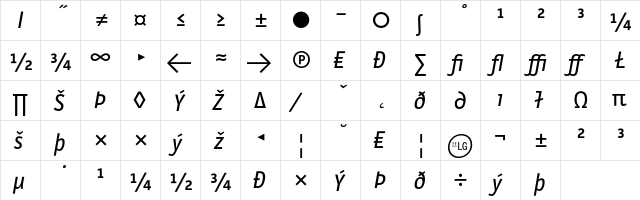
LetterGothicText ItalicExpert Font Preview
LetterGothicText ItalicExpert
Design Context for LetterGothicText Typeface
LetterGothicText takes a clean, functional approach — its unadorned letterforms prioritise legibility and work reliably across screen and print environments. The slanted form adds forward momentum and visual energy.
Font Pairing: Works well alongside a characterful serif or display font that can carry the expressive load while LetterGothicText handles the functional copy.
Pro Tip: Pair LetterGothicText with a display or serif font for headlines — its neutral character makes it an excellent supporting player in complex typographic systems.